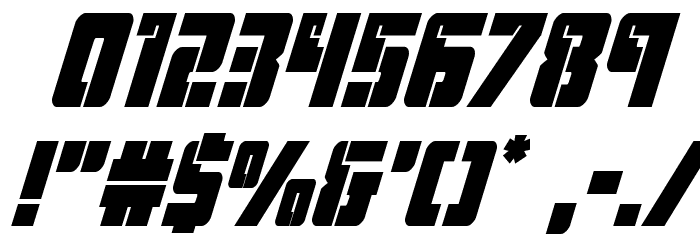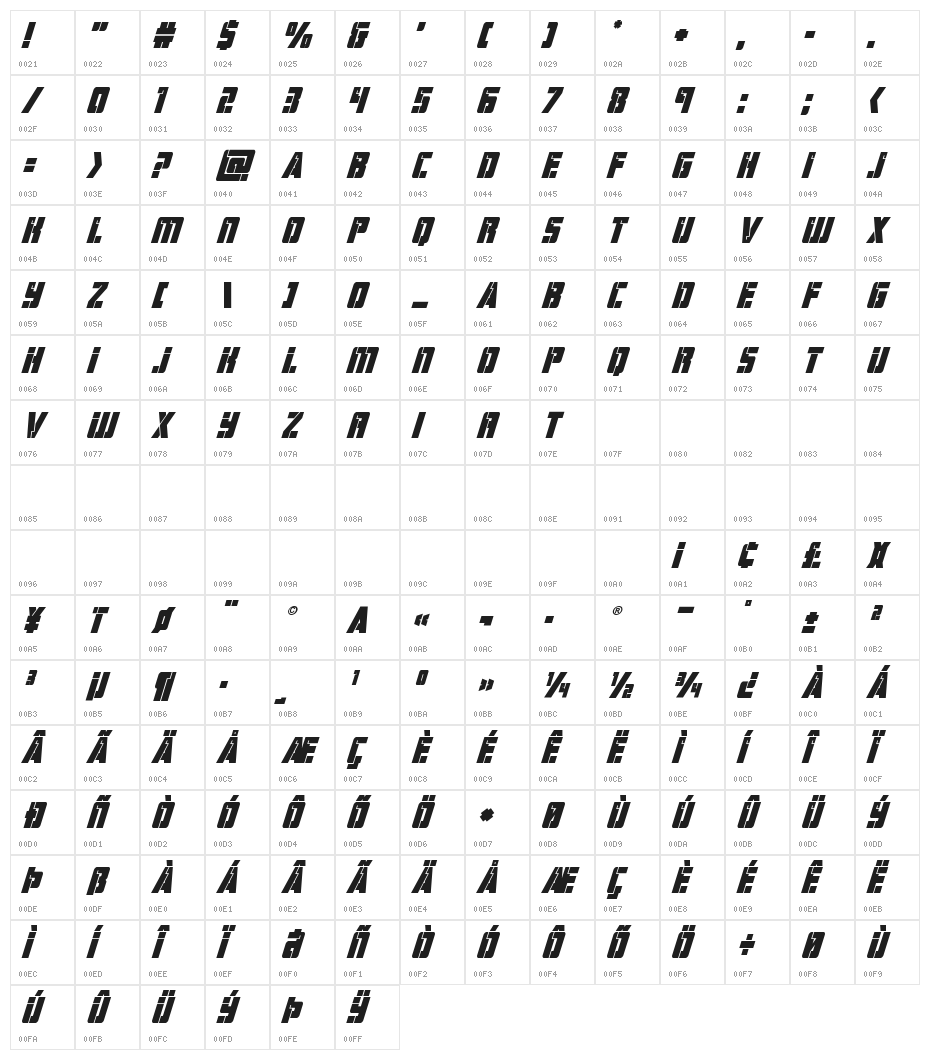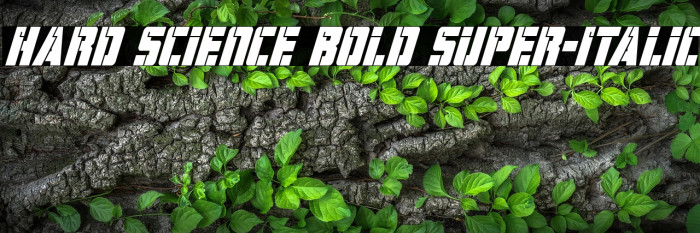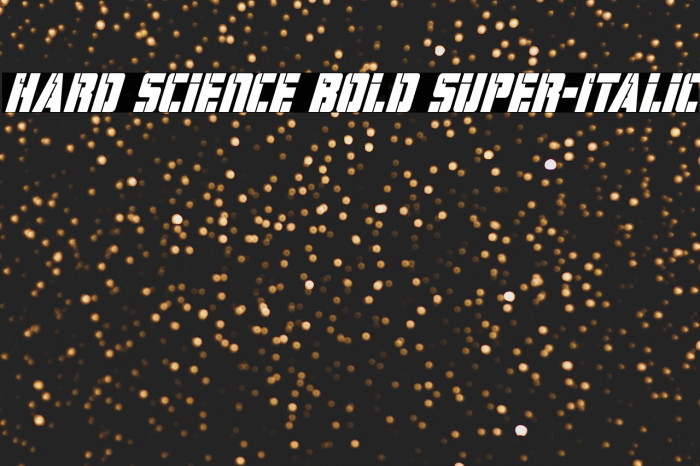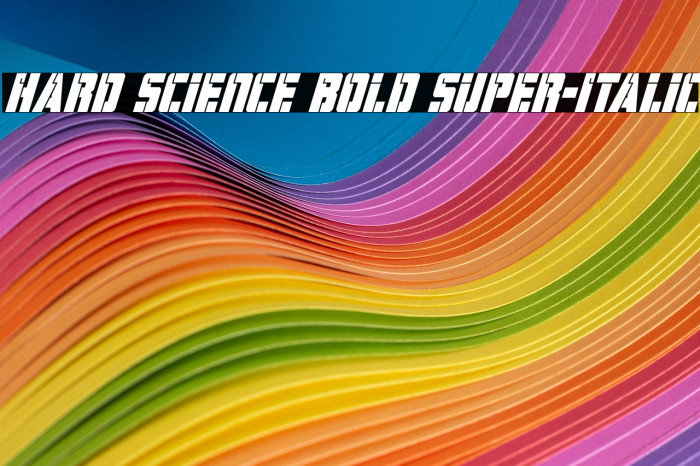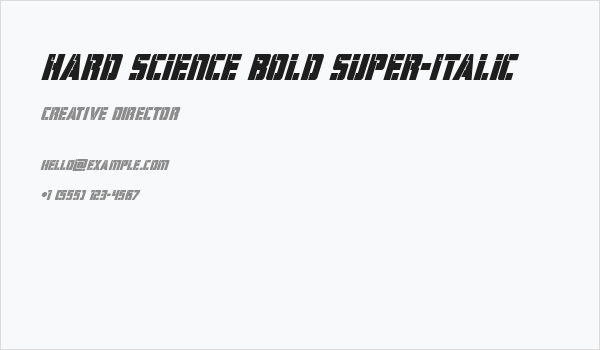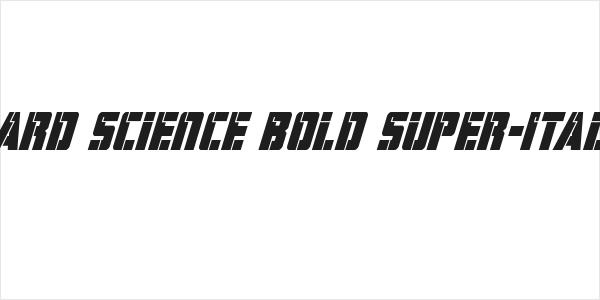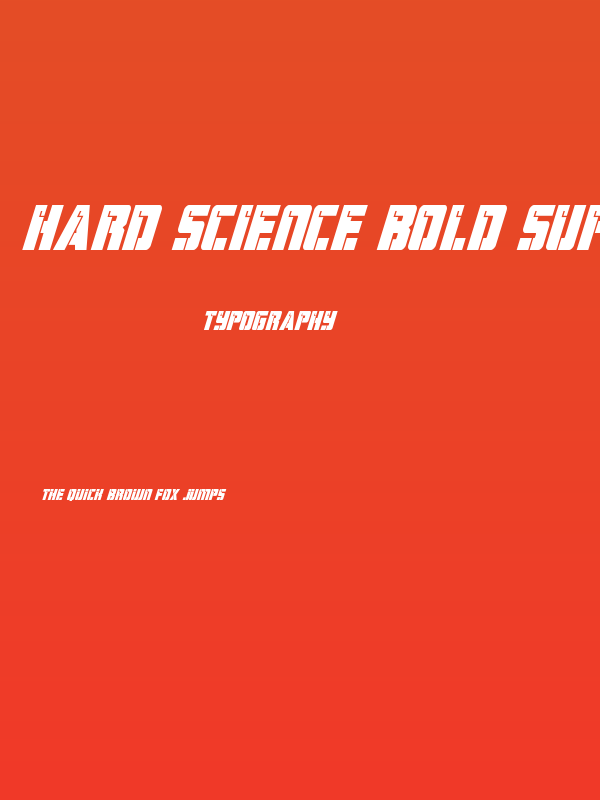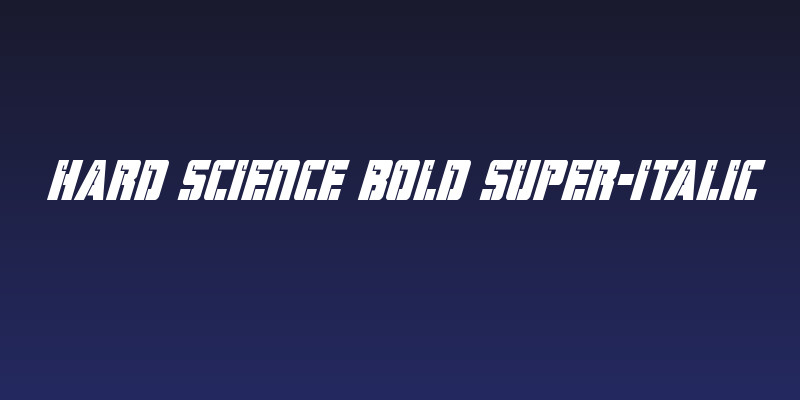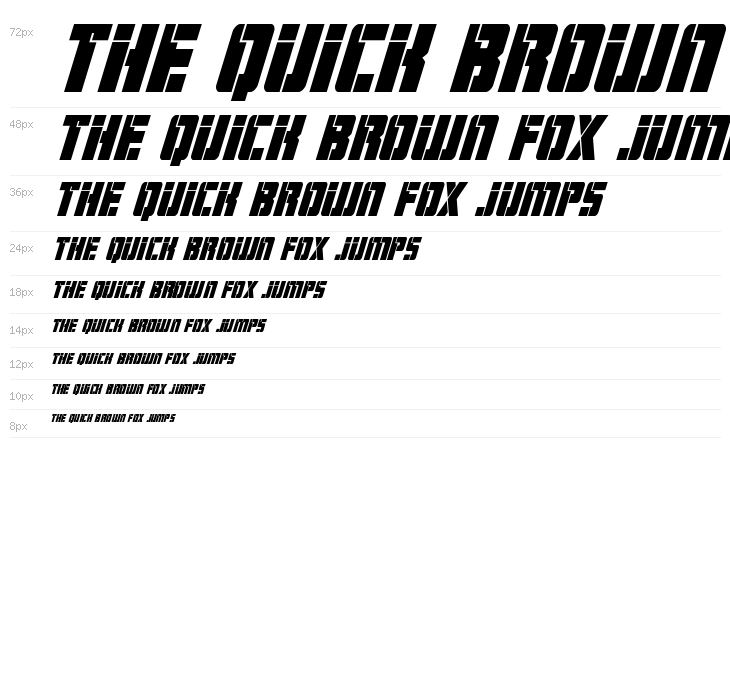
Hard Science Bold Super-Italic Font
Hard Science Bold Super-Italic Description
This font exhibits a bold and dynamic style with a strong italic slant, giving it a sense of movement and urgency. The characters are blocky and geometric, featuring sharp angles and a consistent stroke width that conveys strength and modernity. The uppercase and lowercase letters maintain a uniform appearance, enhancing readability while adding a futuristic touch. The numerals and special characters are designed to match the boldness of the alphabet, ensuring a cohesive look across all text. This font's distinctive style makes it ideal for projects that require a powerful and impactful visual presence.
| Proposed Projects | Ideal for sports branding, technology logos, video game titles, and dynamic poster designs. |